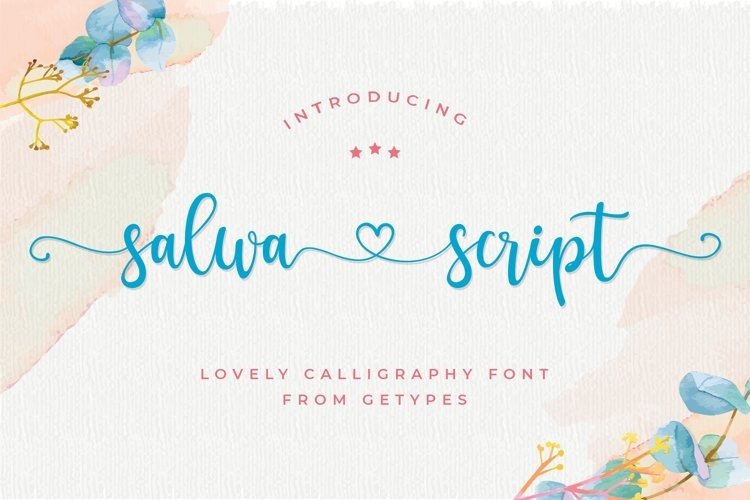
Salwa Font
Salwa Calligraphy Font is an exquisite handwritten font manufactured by Getypes Studio, masterfully designed to become a true favorite. It is slender, feminine and friendly. This font is suitable for branding, wedding invitations, and other romantic projects. This font is PUA encoded which means you can access all of the glyphs and swashes with ease!